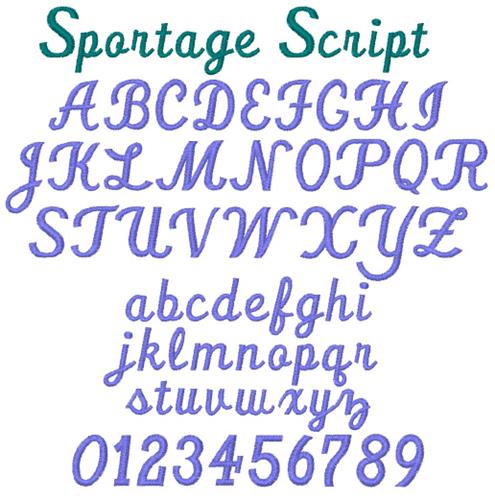
Internet Stitch is happy to present Sportage Script machine embroidery font which has Flowing script style embroidery font, ideal for personalized items like tote bags or casual garments. Shown in vibrant green, it brings a friendly tone to your projects. Available in ART, DST, EMD, EXP, HUS, JEF, PCS, PEC, PES, SEW, VIP, XXX formats. included. If you would like to view more embroidery fonts and alphabets please search our embroidery fonts page.